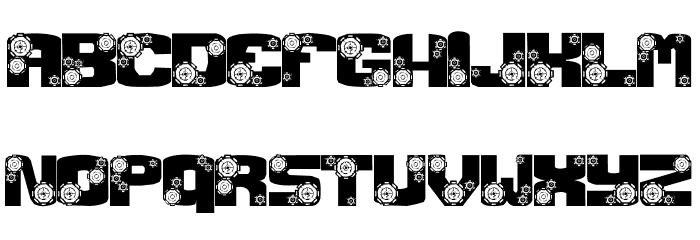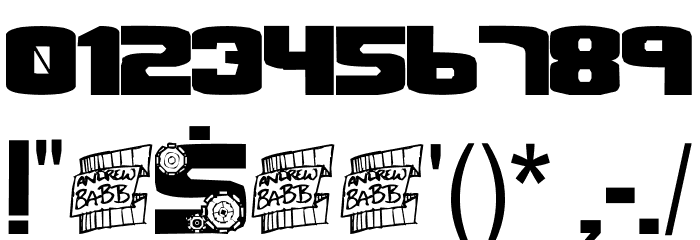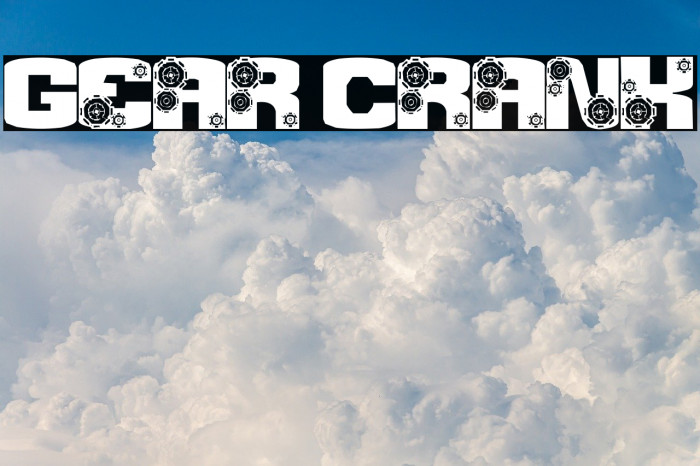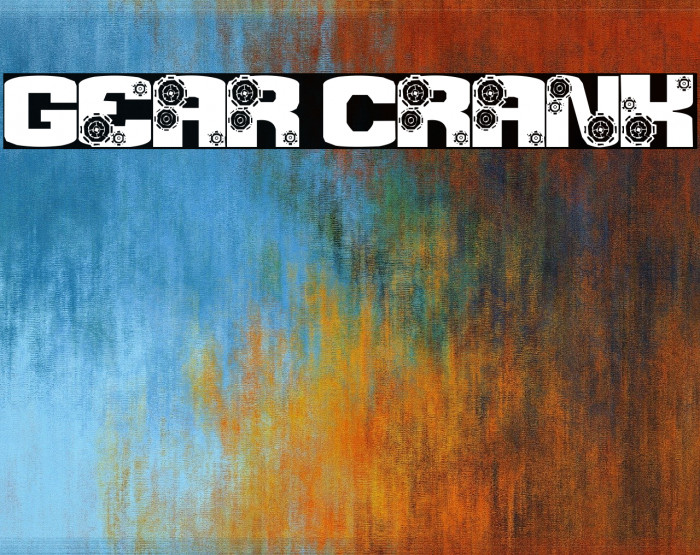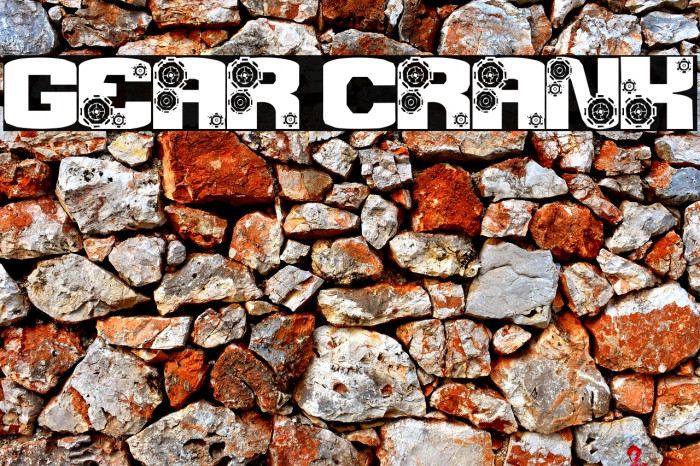
Gear Crank Font
This font features a bold and industrial design, incorporating mechanical elements such as gears and cranks into the structure of each character. The uppercase and lowercase letters, as well as numbers, are crafted with a robust and solid appearance, making them stand out with a unique mechanical aesthetic. The special characters maintain this theme, adding a cohesive look throughout the font set. The design is both eye-catching and distinctive, perfect for projects that require a strong and thematic visual impact.
A bold, industrial font with mechanical gear elements integrated into each character.
- Proposed Projects: Ideal for branding in the automotive or engineering sectors, posters for industrial-themed events, or any project requiring a strong, mechanical aesthetic.
- Overall Style: Industrial, Mechanical
- Use Case: Logos, Posters, Branding